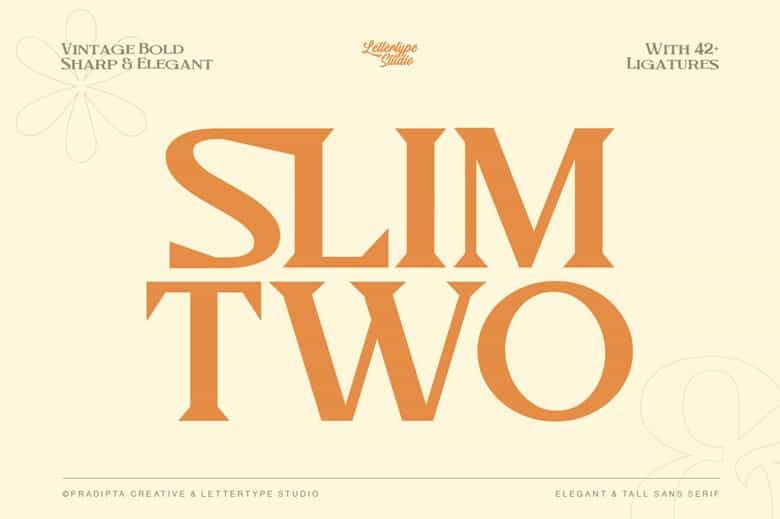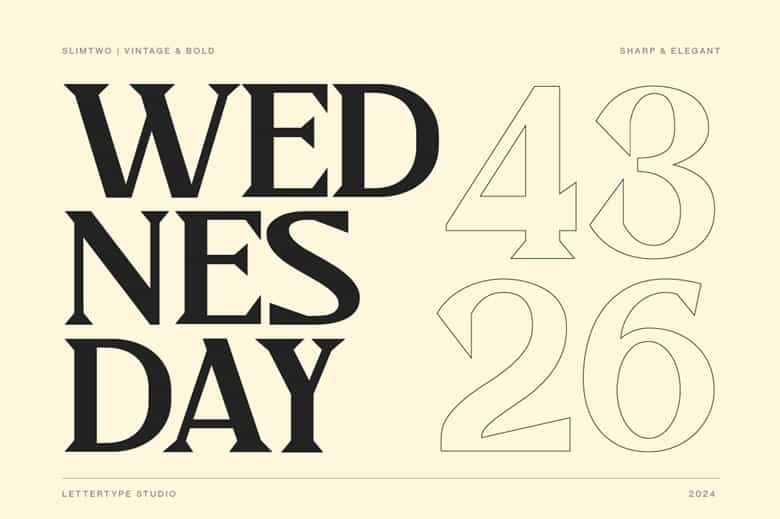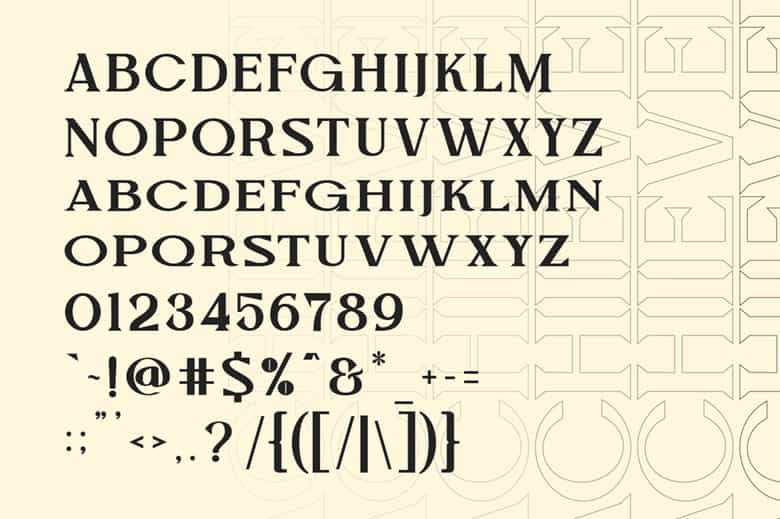
Introducing, Slim Two is a vintage bold, sharp and elegant serif font that is ideal for any designer looking to make a design that is classic and can never go out of style. These fonts were derived from typography and give a strong feel with well defined edges and graceful corners.